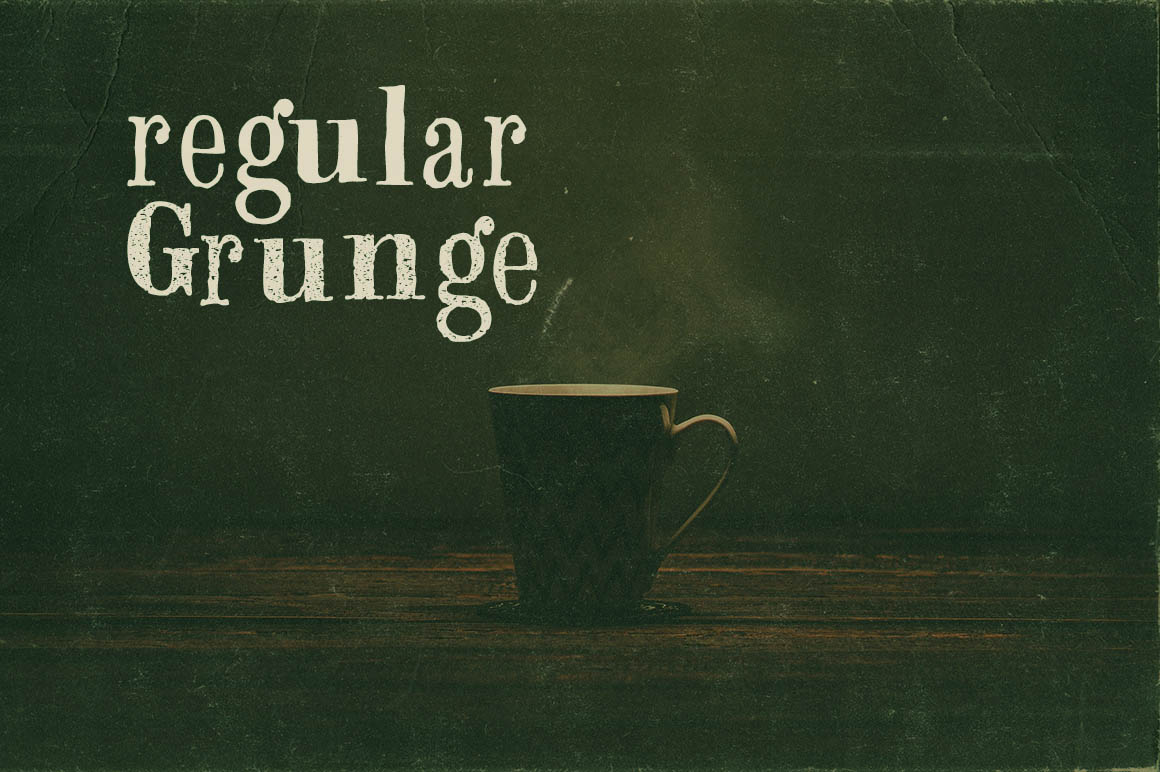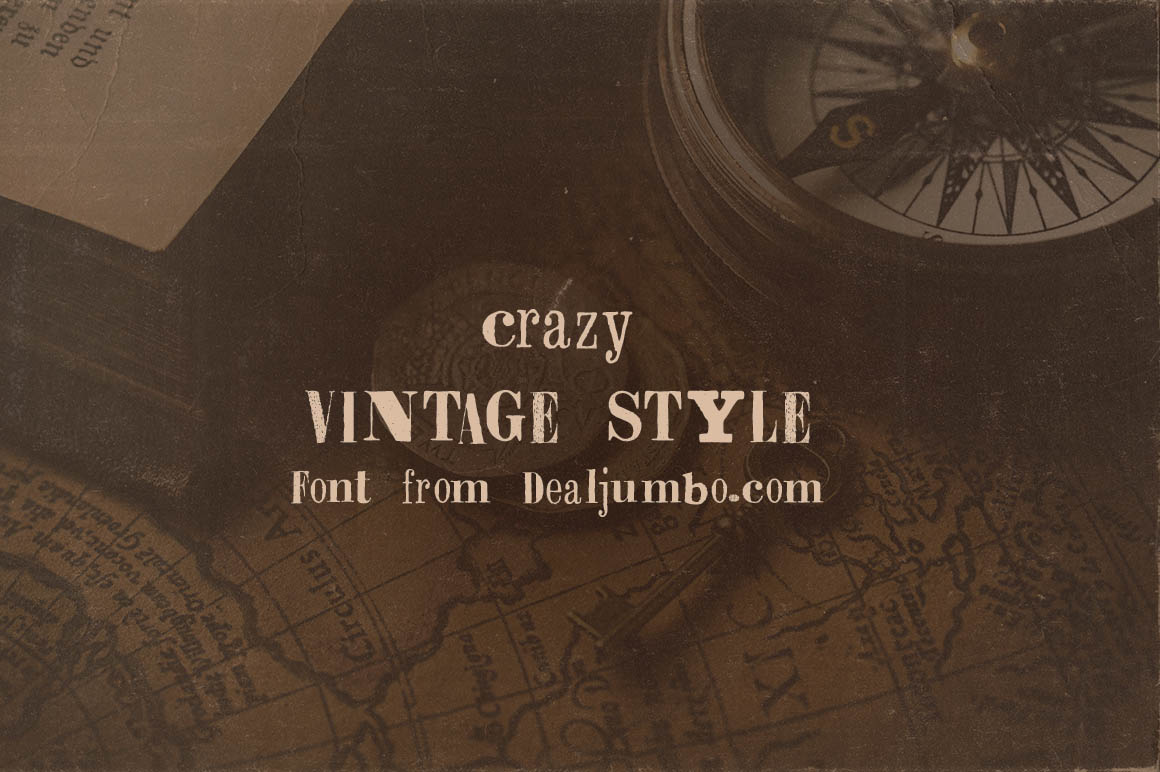
Metropolis – Free Font
Rough and crazy vintage style – free font from MIIM Design. Only basic characters in 2 font versions: Regular & Grunge. Download & enjoy ;) Exclusive only for dealjumbo!